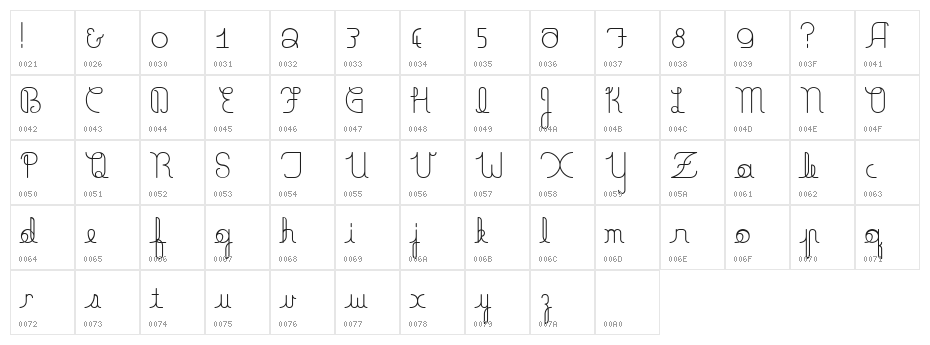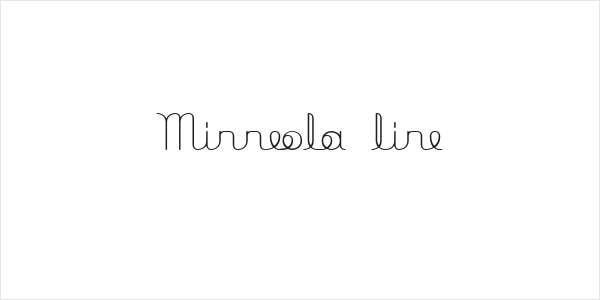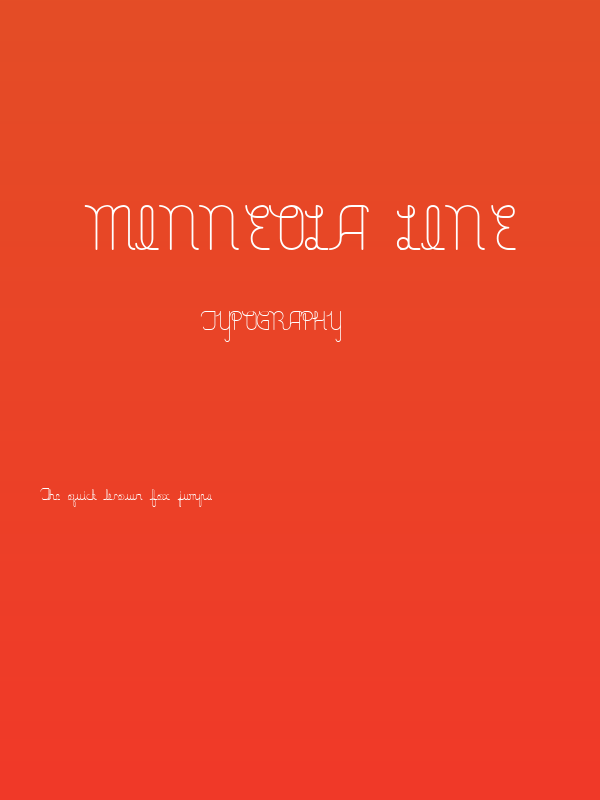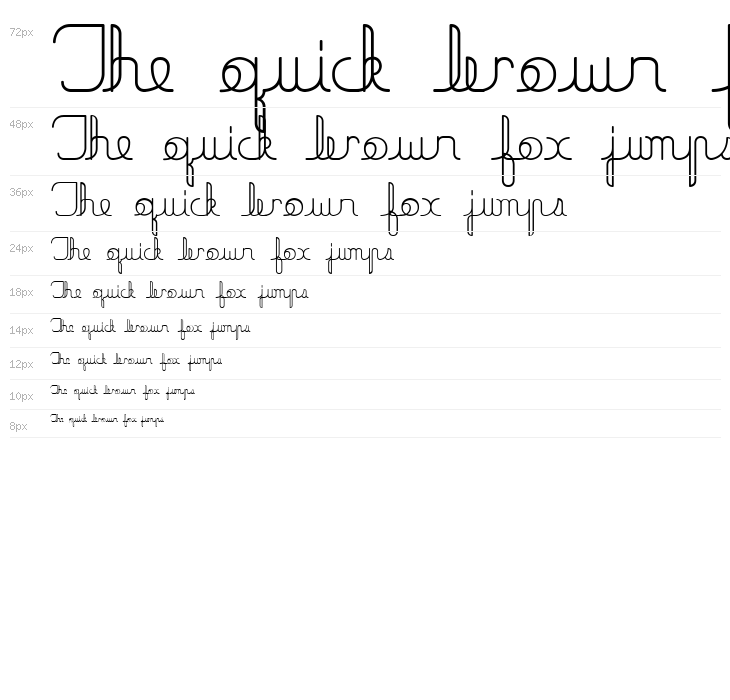
Minneola line Font
Minneola line Description
This font features a unique and modern design with a continuous line style that creates an elegant and artistic appearance. The characters are crafted with a single, unbroken line that loops and curves to form each letter, giving it a distinctive and cohesive look. The uppercase and lowercase letters maintain a consistent height and width, contributing to a harmonious visual flow. The numerals and special characters follow the same design principles, ensuring uniformity across all glyphs. This font's thin strokes and open spaces create a light and airy feel, making it suitable for creative and contemporary projects.
| Proposed Projects | Ideal for creative branding, artistic posters, modern invitations, and unique logo designs. |